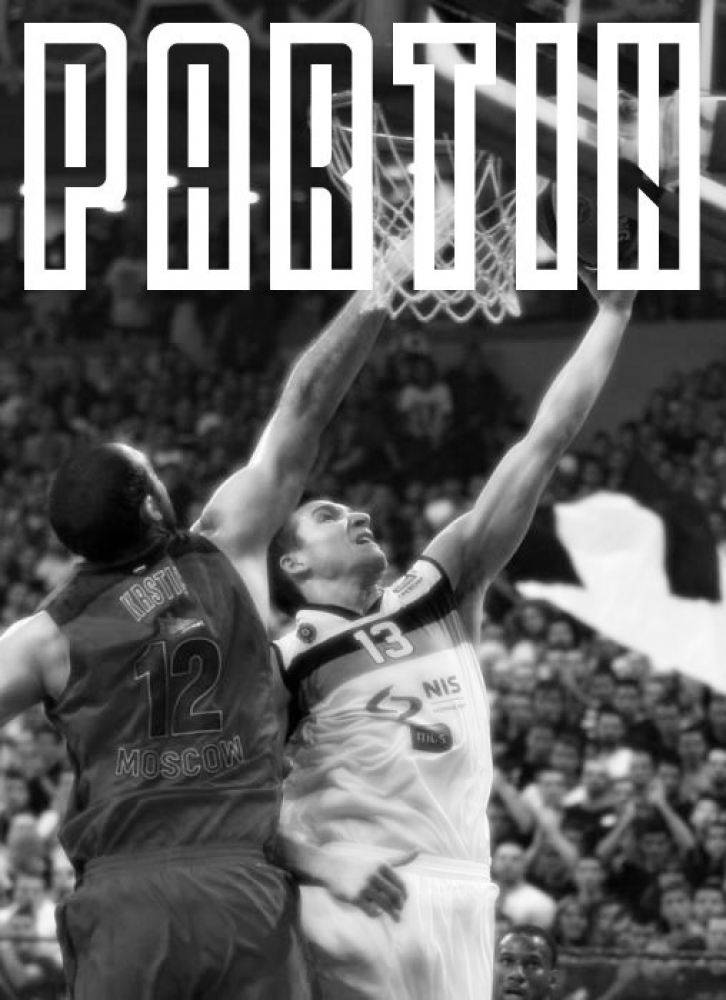
PARTIN is clean tall and FREE font inspired by basketball. Alphabet and serbian cyrillic included. Font contains upper case and alternative lower caps letters.